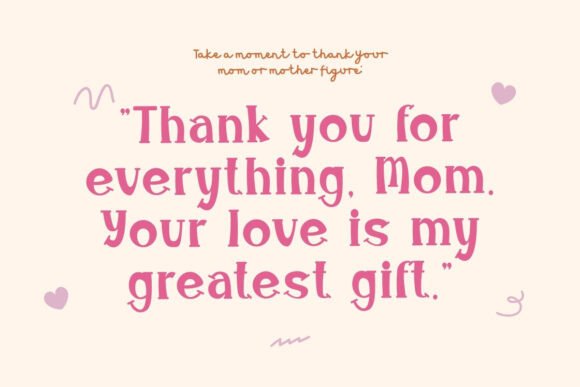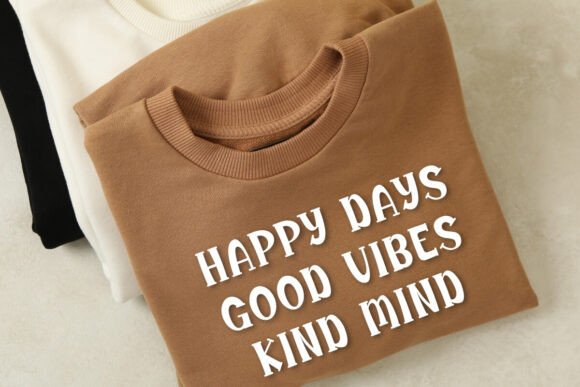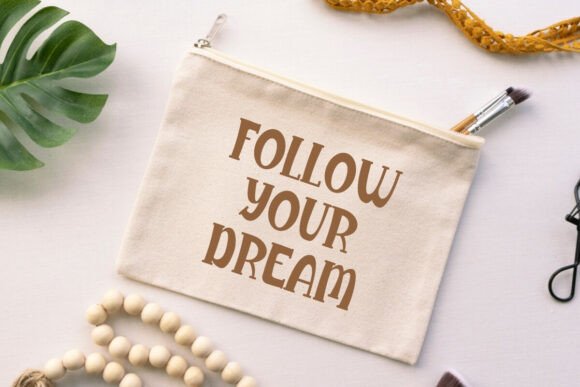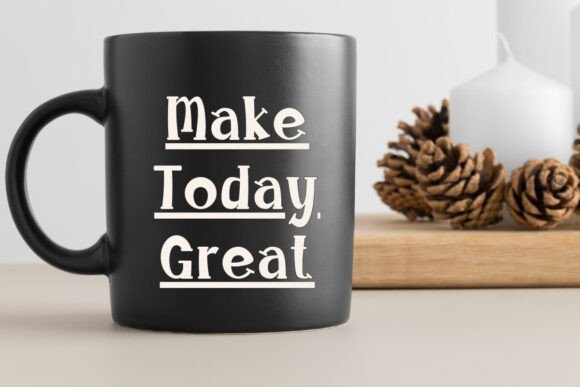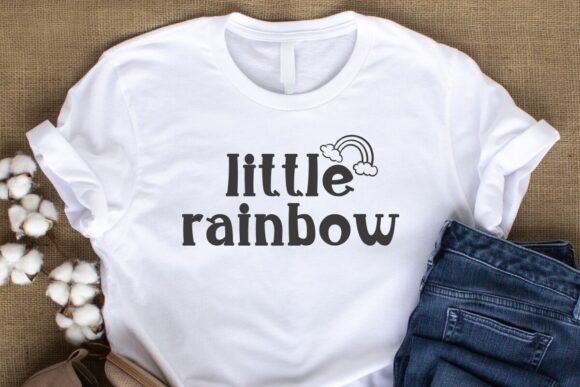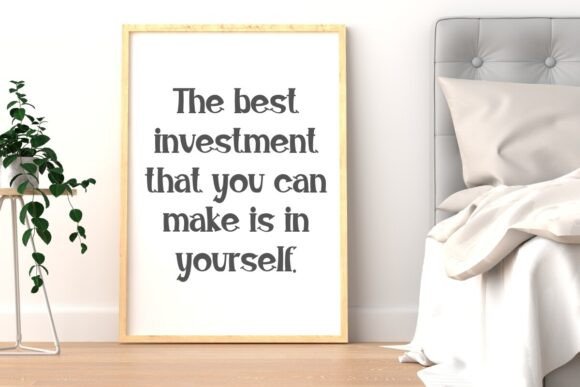
Introduction to Mother Rainbow Font
Remember that moment when you stumble upon the perfect font for your creative project? The one that elevates your design from good to great? For designers, finding that perfect font can be a game-changer. It’s like discovering a hidden treasure that takes your project to the next level.
That’s exactly what the Mother Rainbow Font does. This bold and cute display font is a design enthusiast’s dream come true. With its wide characters and chunky serifs, it’s ideal for eye-catching designs that demand attention. Whether you’re working on a Valentine’s Day project, a Mother’s Day quote, or a product label, the Mother Rainbow Font is sure to make your design stand out.
- Designed with a unique, vibrant aesthetic, perfect for adding a pop of color to your creative project.
- Perfect for use in various design contexts, including branding, packaging, and digital art.
Honest Review: Mother Rainbow Font
I recently came across the Mother Rainbow Font, and I must say it’s a unique addition to any designer’s toolkit. This free download has been a game-changer for my creative projects.
What works well: ✨ The Mother Rainbow Font offers a high-quality design resource that’s perfect for any creative project. The font’s transparent background makes it easy to overlay on any image or design. I also appreciate the quirky, playful feel it brings to my designs.
Some limitations: ⚠️ The font may not be suitable for all projects, especially those requiring a more formal or professional tone. Additionally, the font’s unique style may not be to everyone’s taste.
Here are some key features of the Mother Rainbow Font:
- Quirky, playful feel
Overall, I’m impressed with the Mother Rainbow Font. While it may not be for everyone, it’s a valuable addition to any designer’s collection. I’d recommend it for any creative project that requires a bit of whimsy and personality.
Tips for Getting the Most Out of Mother Rainbow Font
When using the Mother Rainbow Font, be sure to take advantage of its transparent background feature. This allows you to easily layer the font over other design elements and create a seamless look. You can also experiment with different font sizes and styles to add visual interest to your project.
Common Use Cases for Mother Rainbow Font
The Mother Rainbow Font is ideal for a variety of creative projects, including social media graphics, posters, presentations, and more. It’s also a great choice for designers who want to add a touch of whimsy and personality to their work.
Yes, the Mother Rainbow Font is designed to be versatile and suitable for various design projects, including those with transparent backgrounds. You can use it for creative projects, such as logos, icons, and graphics, where a transparent background is required.